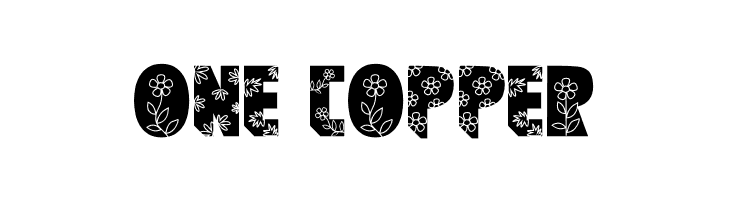
An ornate decorative font with intricate floral embellishments.
A whimsical, decorative script font with playful curls and heart-like embellishments.
Hand-drawn floral illustrations with intricate detail.
A playful, elegant handwritten font with smooth, flowing curves.
A bold, three-dimensional font with a street art-inspired style.
A decorative font with floral elements integrated into each character.
A bold, expressive script font with fluid, brush-like strokes.
A pixelated, retro-style font with a blocky, digital appearance.
A decorative font with floral elements integrated into each character.
A playful, bold handwritten font with a casual and friendly style.
A graceful and flowing script font with elegant cursive strokes.
A whimsical, hand-drawn style font with playful, irregular letterforms.
A playful, decorative font with floral accents on bold, rounded characters.
A decorative font with floral elements and bold, artistic letterforms.
A playful, decorative font with floral elements and bold, artistic letterforms.
A decorative font with bold letters filled with intricate floral patterns.
A decorative font with intricate floral designs forming each character.
A decorative font with floral motifs and elegant script lettering.
Hand-drawn floral decorative illustrations with a whimsical, organic style.
A whimsical, playful font with flowing, organic lines and a handwritten feel.
A whimsical, bold, and decorative font with a playful, floral-inspired design.
An ornate, floral-themed decorative font with intricate botanical designs.
A bold, elegant script font with flowing, calligraphic strokes.
A decorative font with floral embellishments and angular, bold characters.
A decorative collection of floral and geometric symbols for artistic embellishments.
A playful, modern font with tall, narrow characters and clean lines.
A decorative serif font with intricate floral embellishments.
A bold, hand-drawn style font with an expressive and artistic appearance.
A bold, artistic font with a hand-drawn, playful style.
A bold, flowing script font with a modern, decorative style.
An elegant, flowing script font with ornate, decorative letterforms.